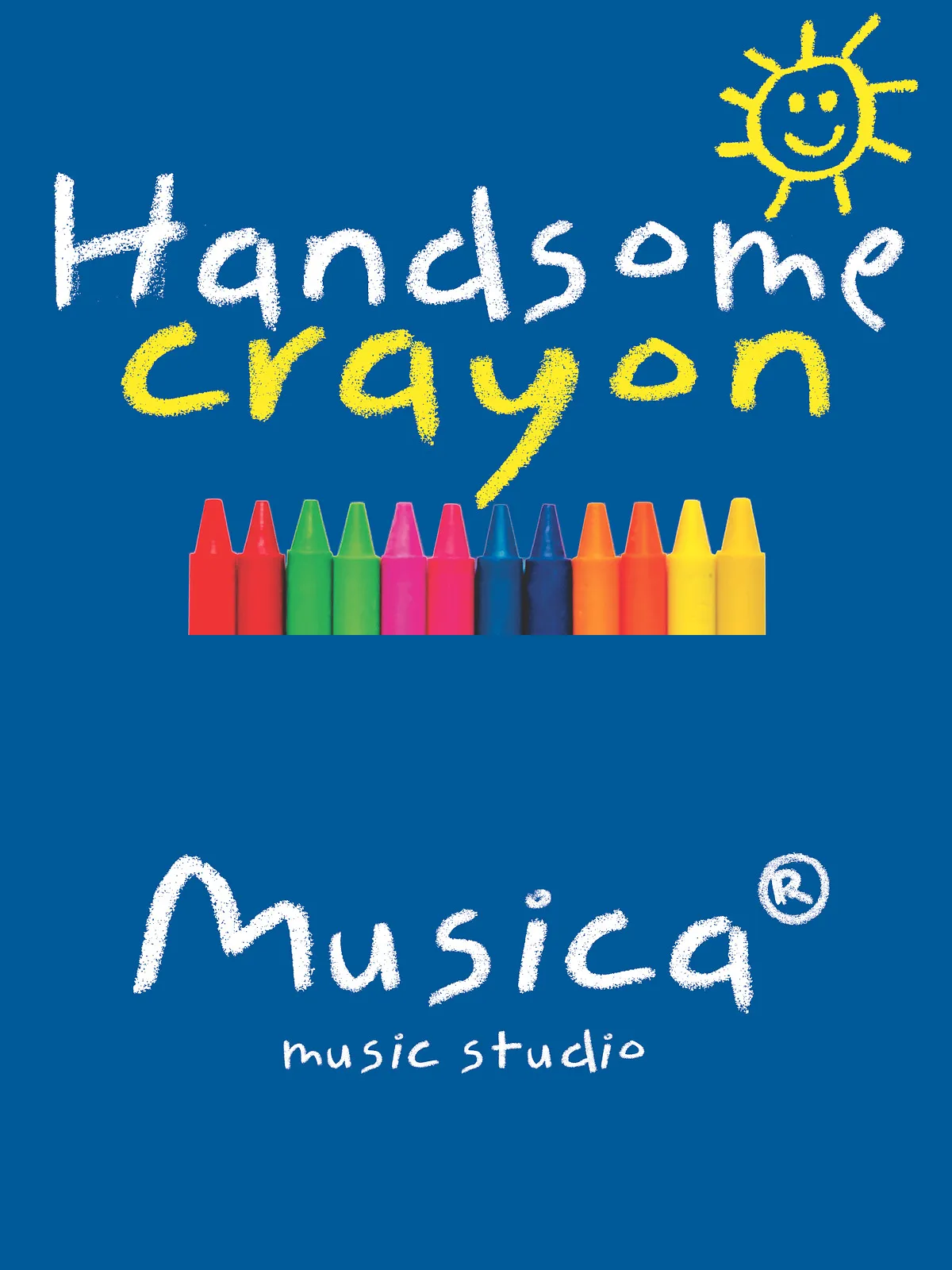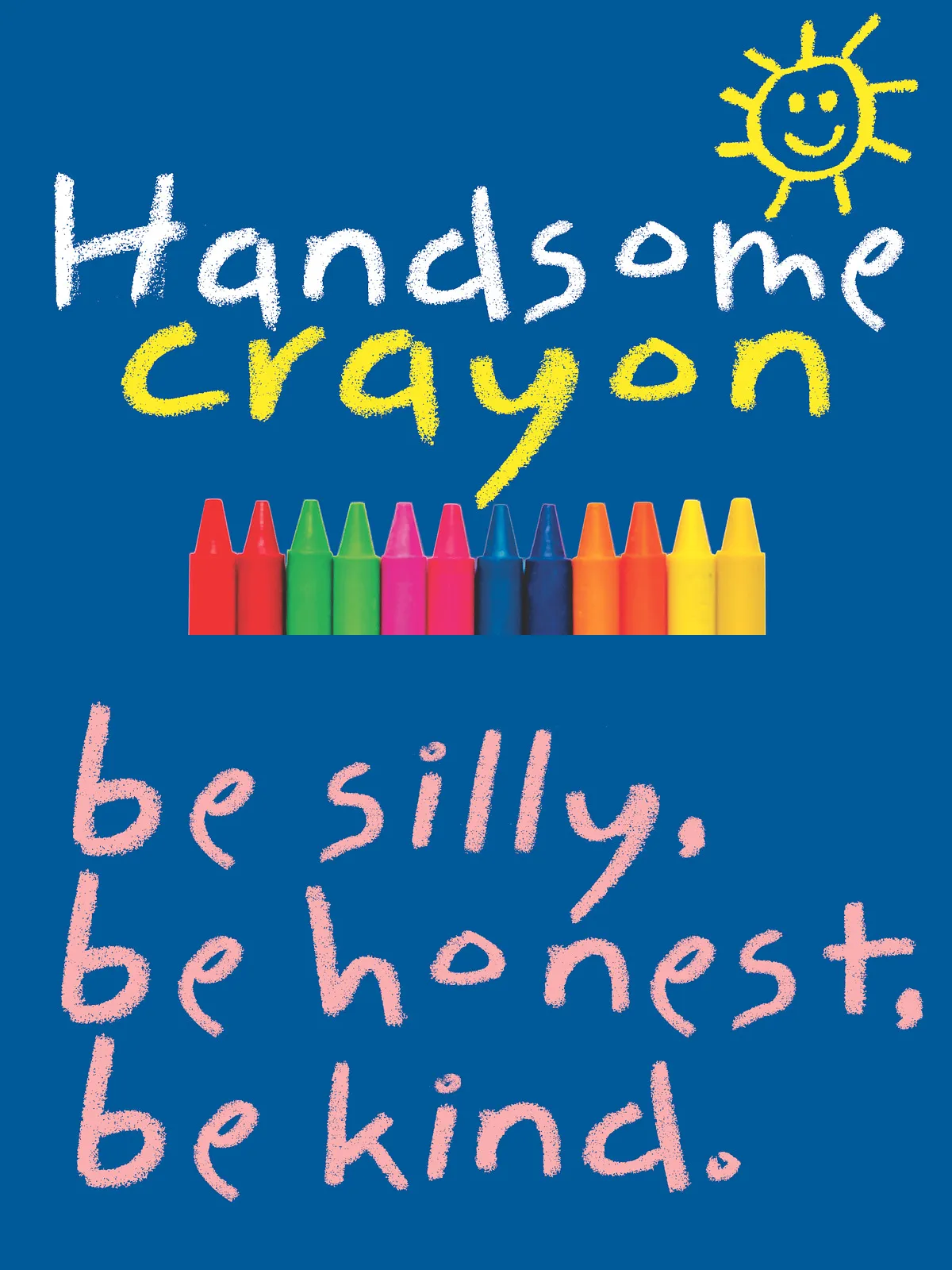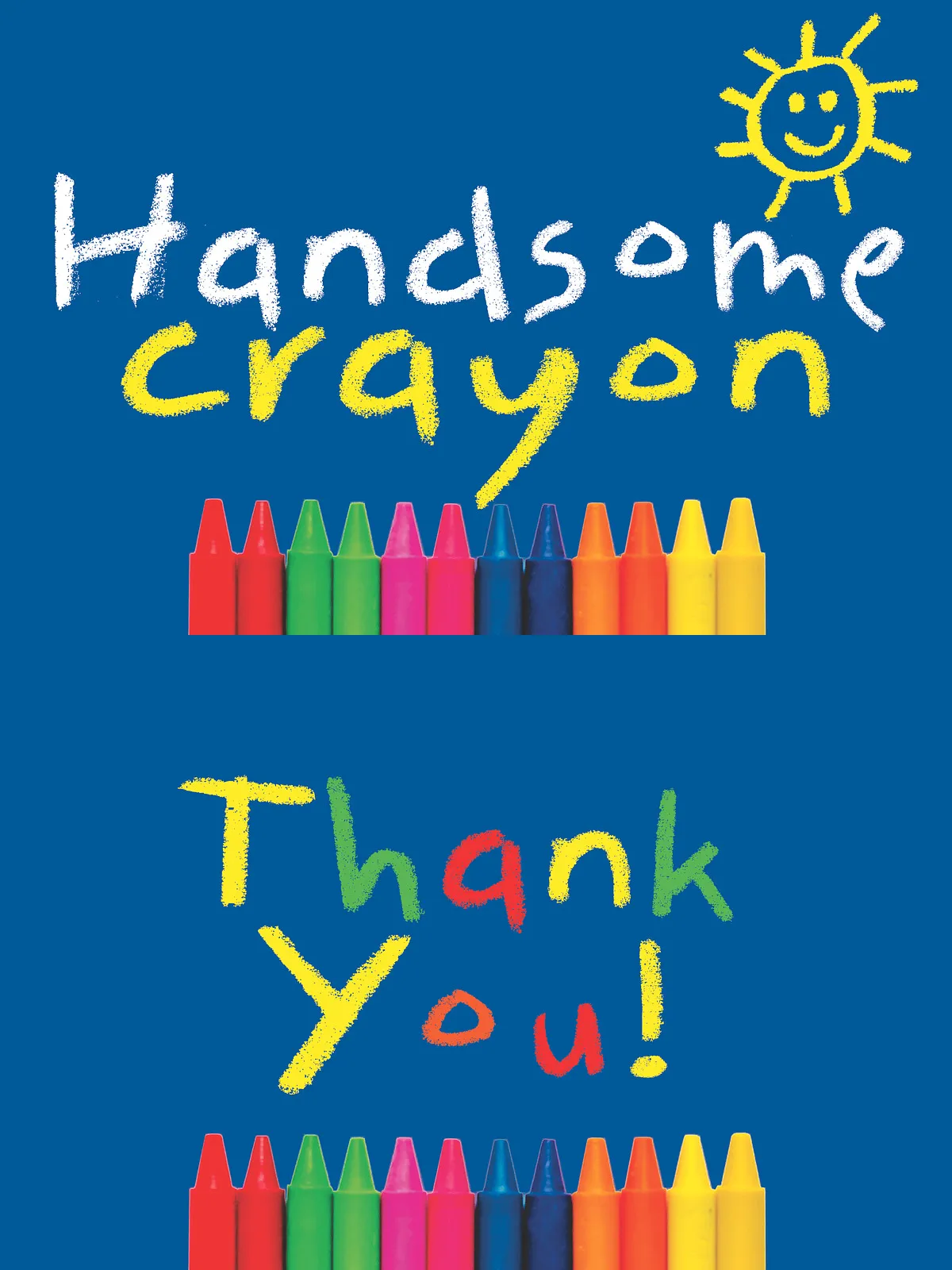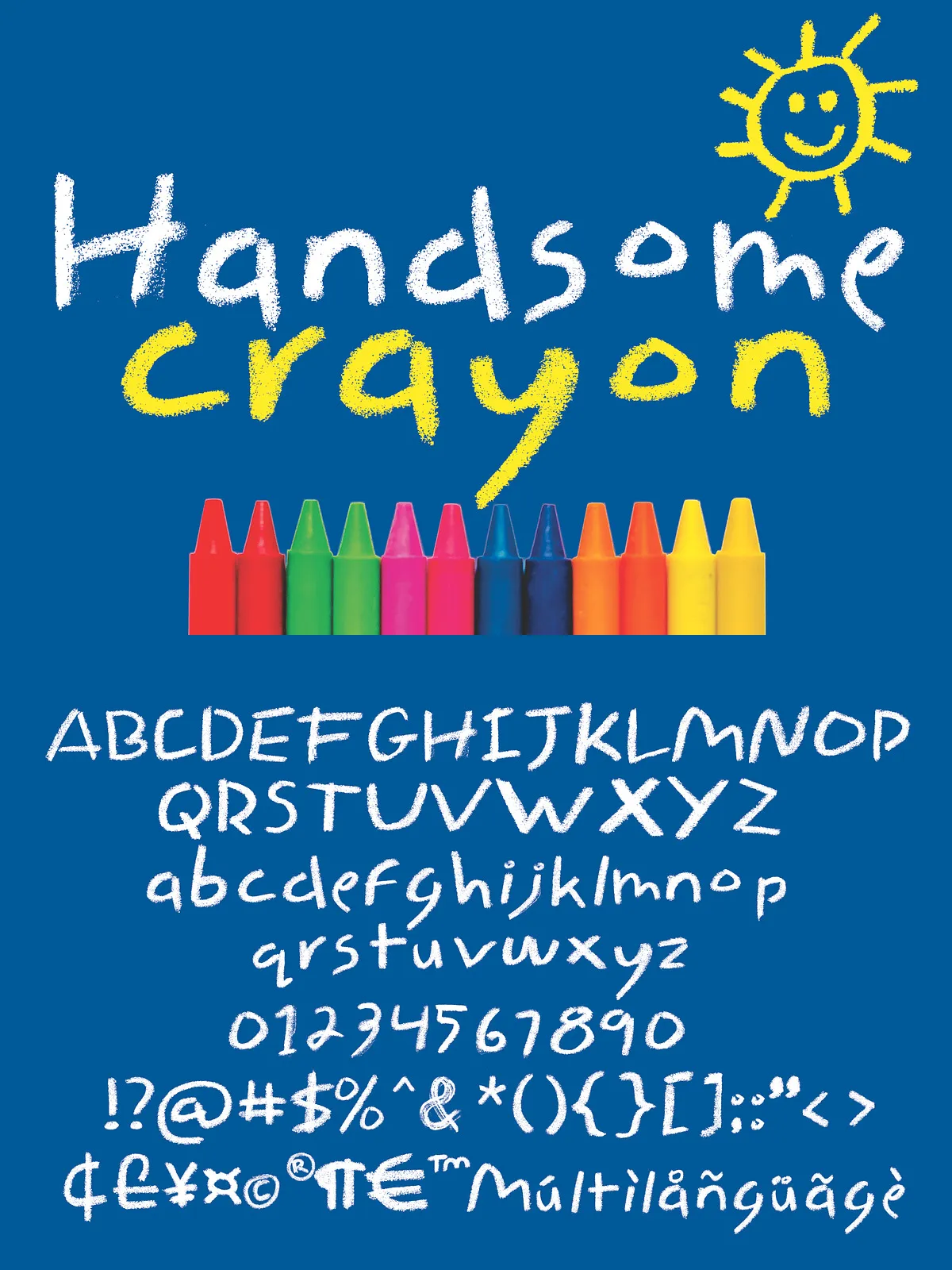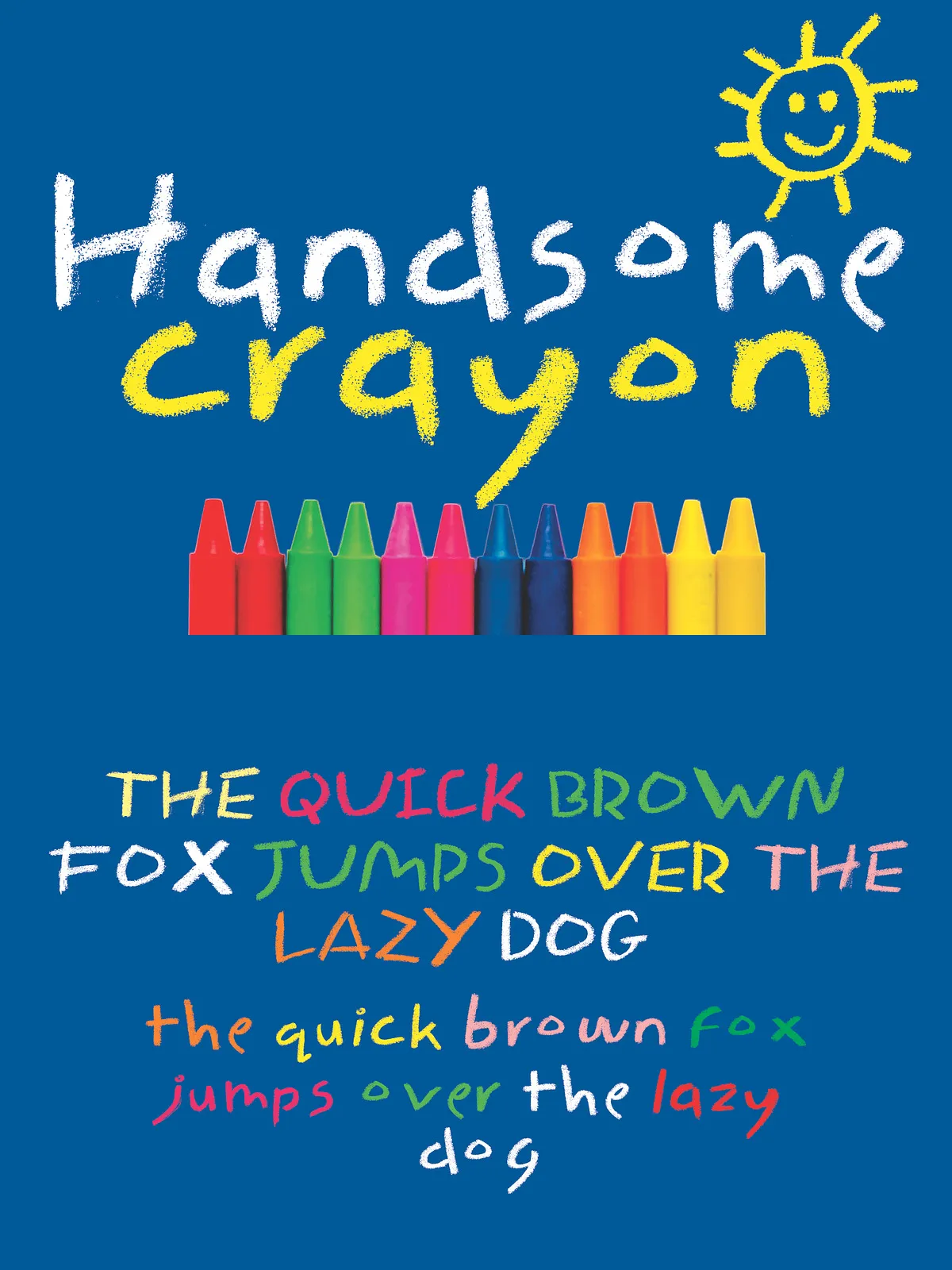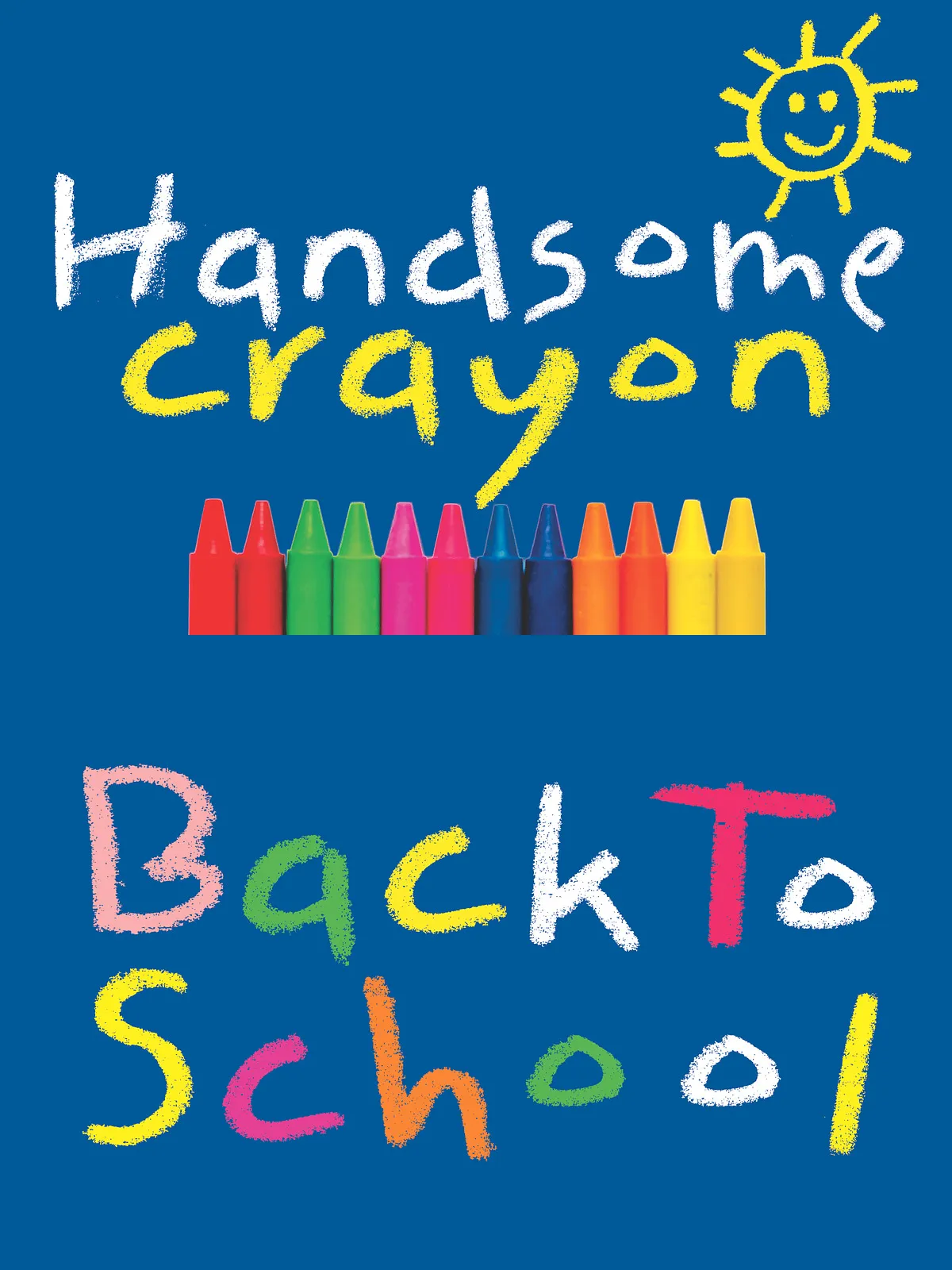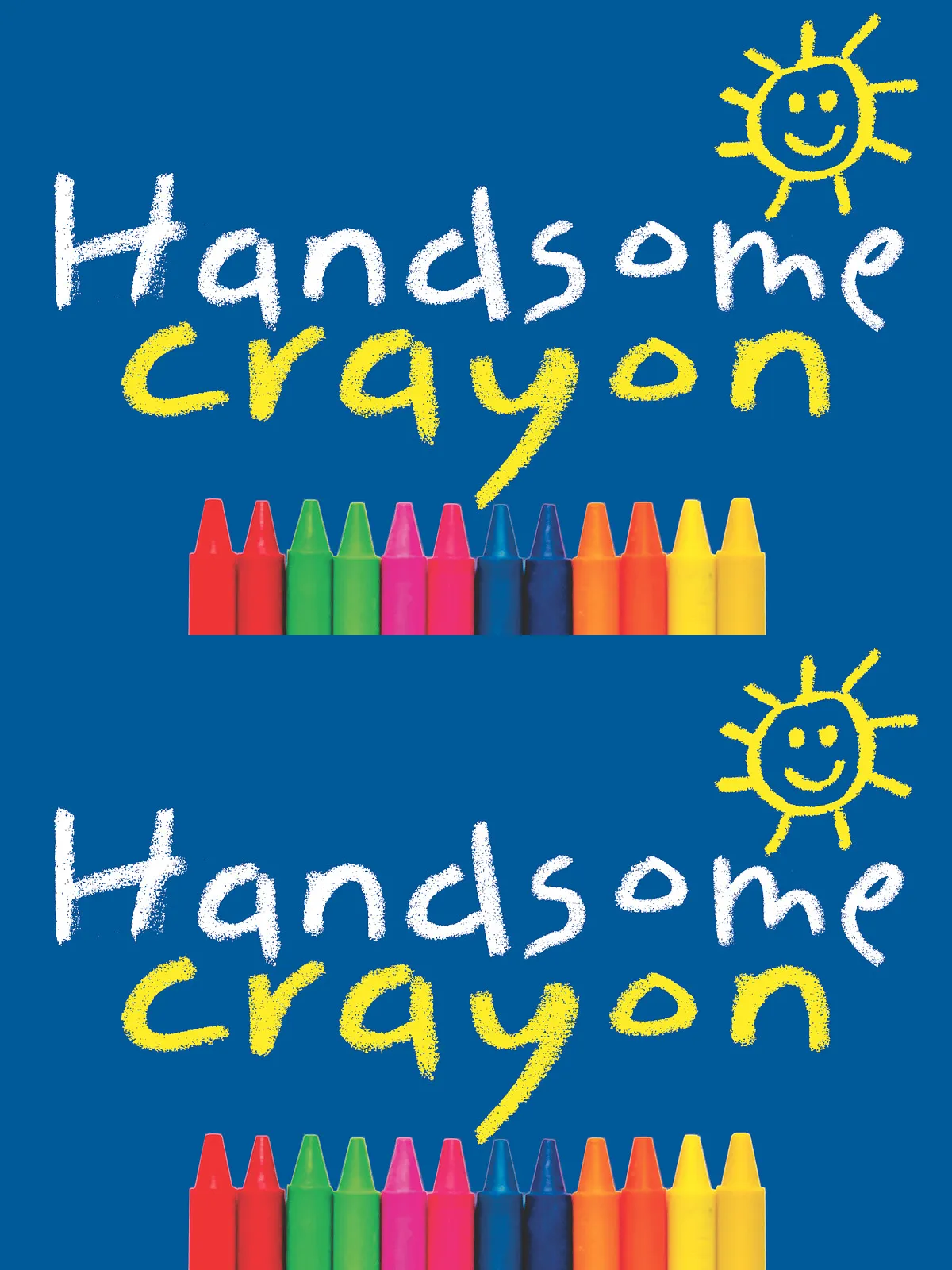
Handsome Crayon is a realistic crayon-style font, inspired by my child’s hand-drawn using crayons. This font is ideal for anyone who wants to use crayon style lettering but doesn’t have crayons, oil pastels or charcoal. So it’s a quick solution for your design projects.
– Uppercase
– Lowercase
– numeric & Multilingual support